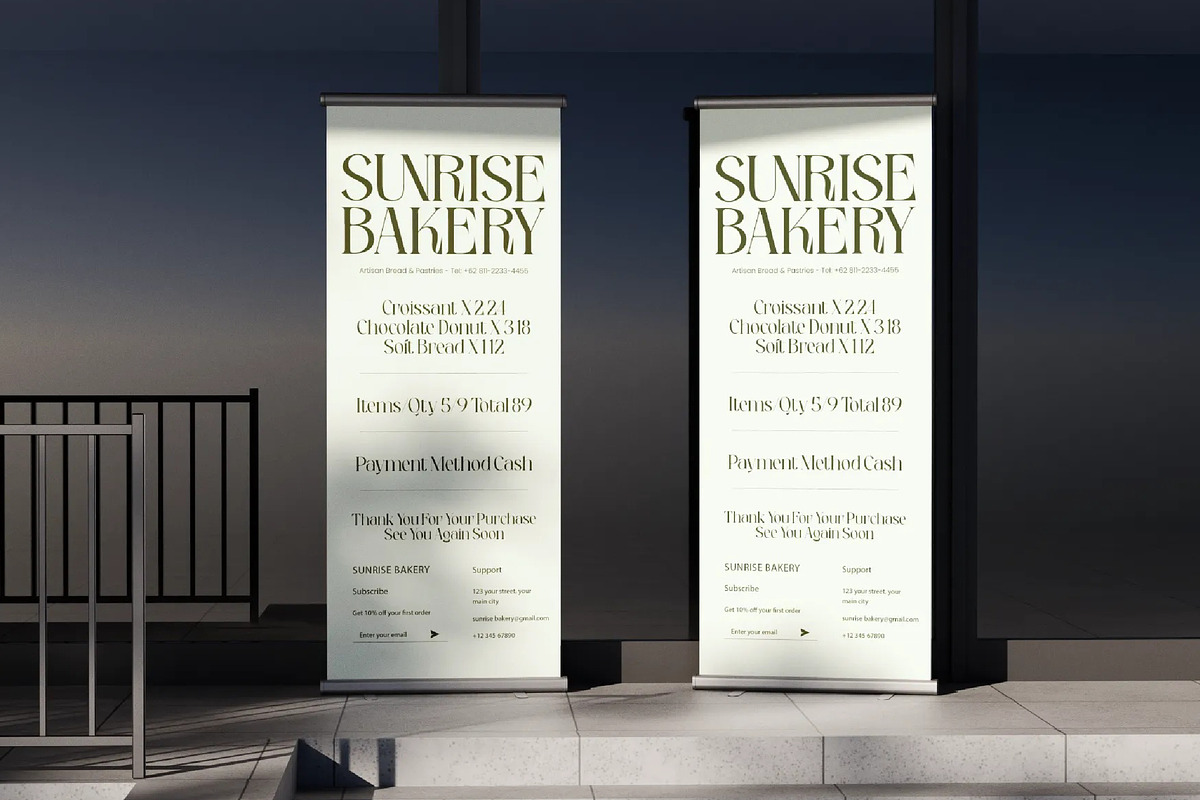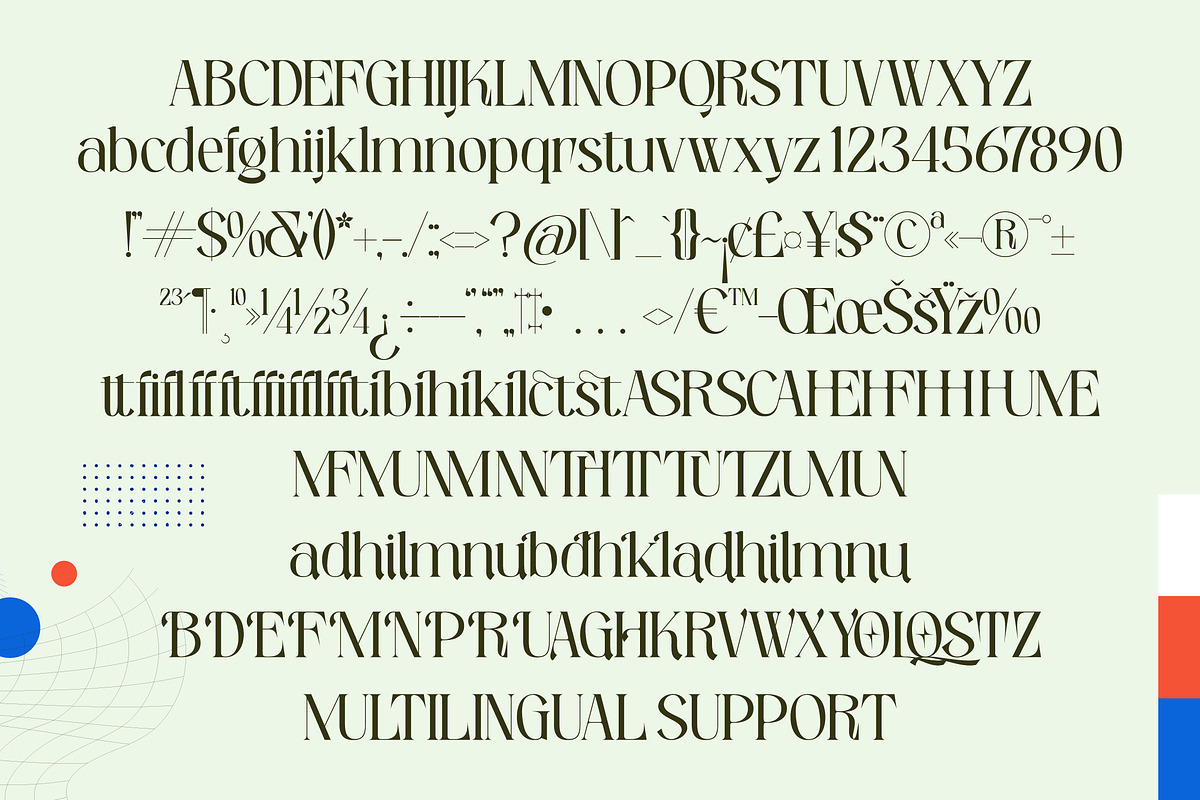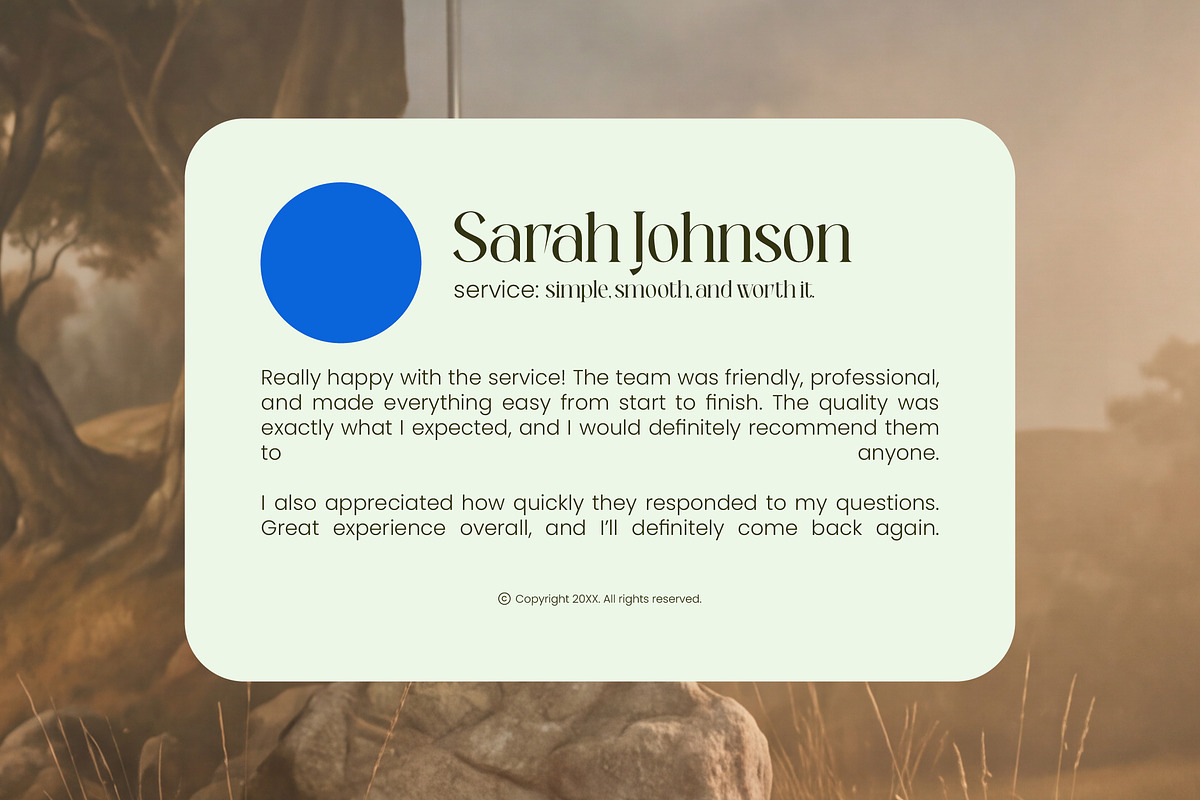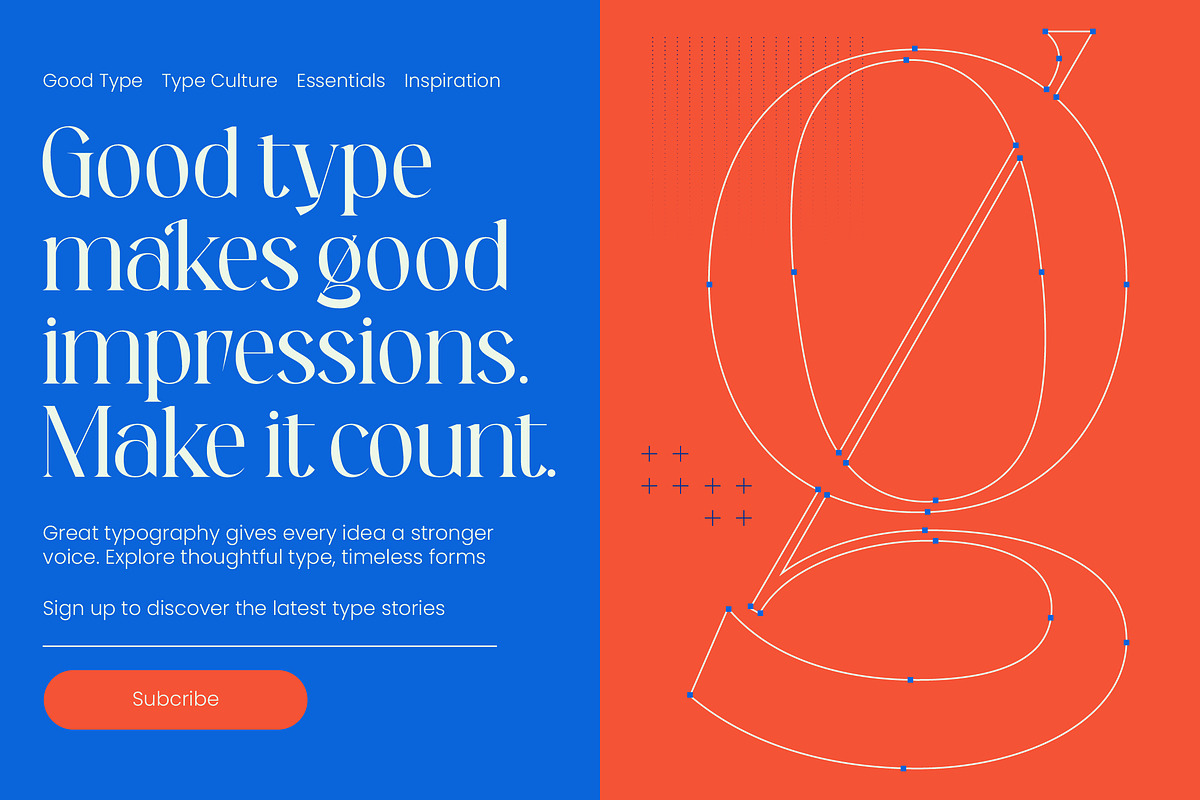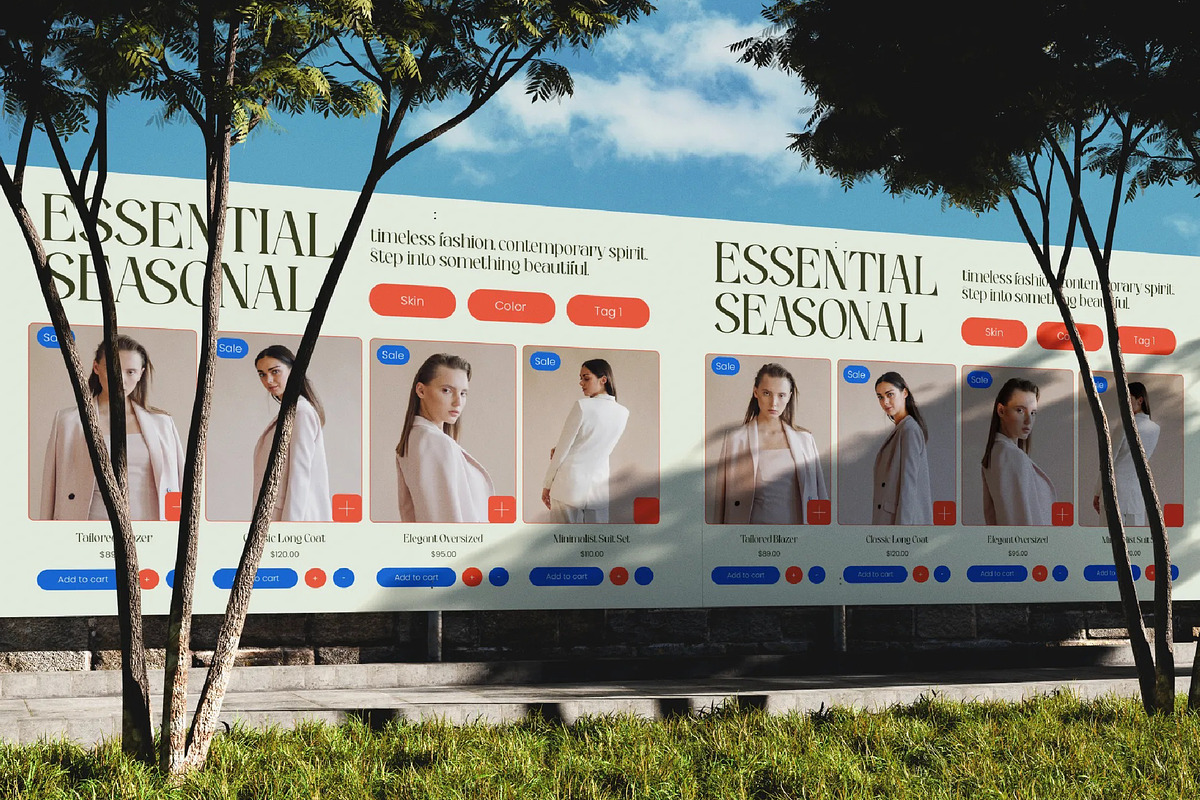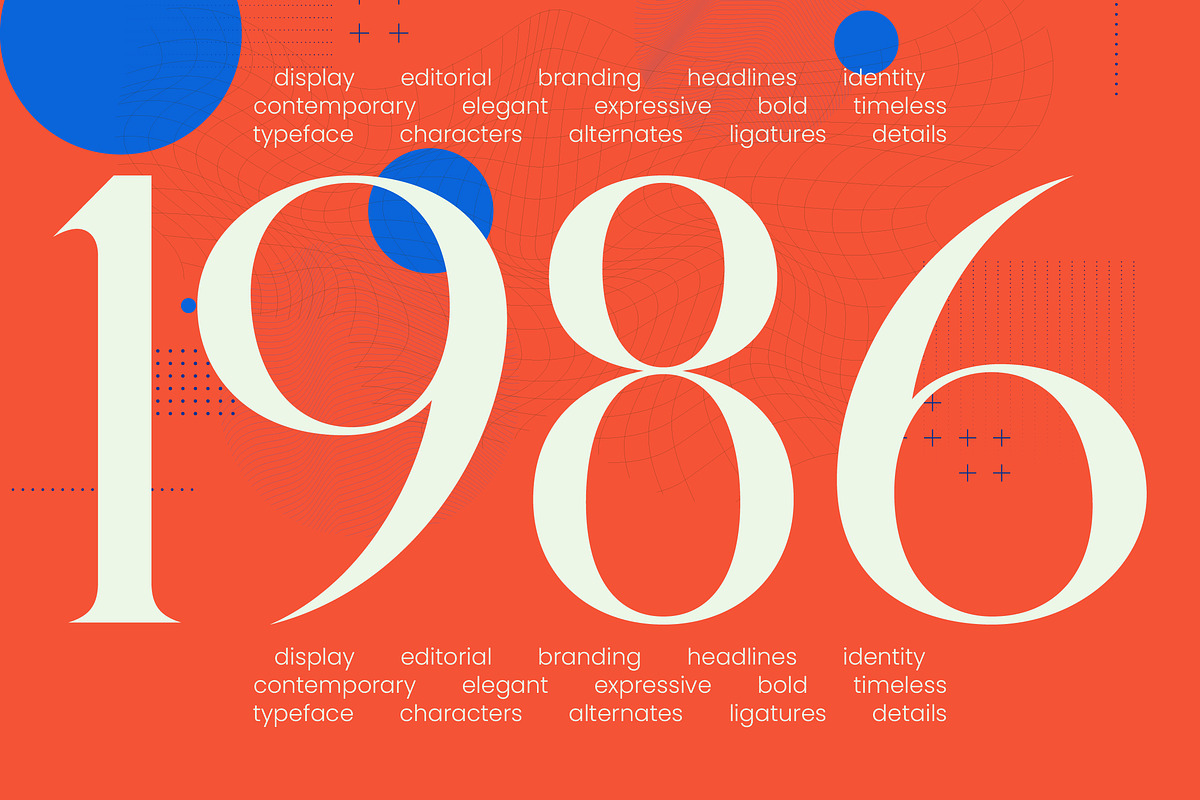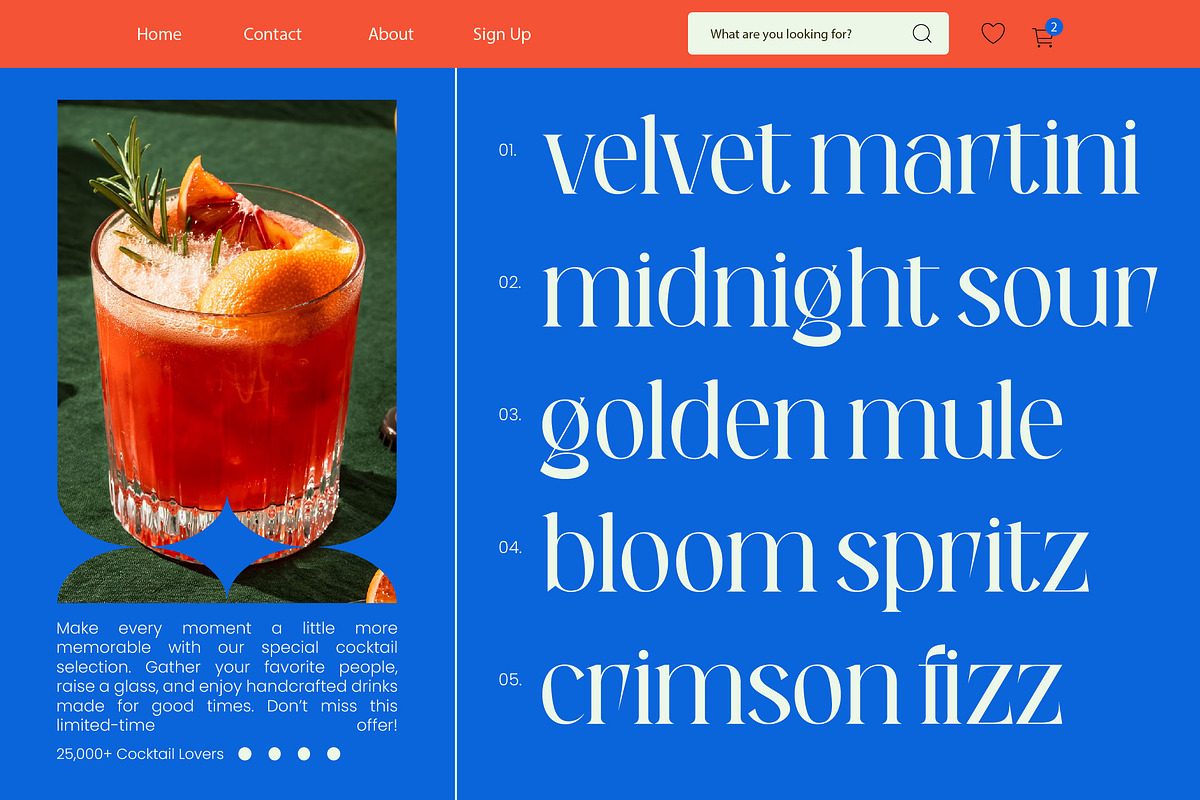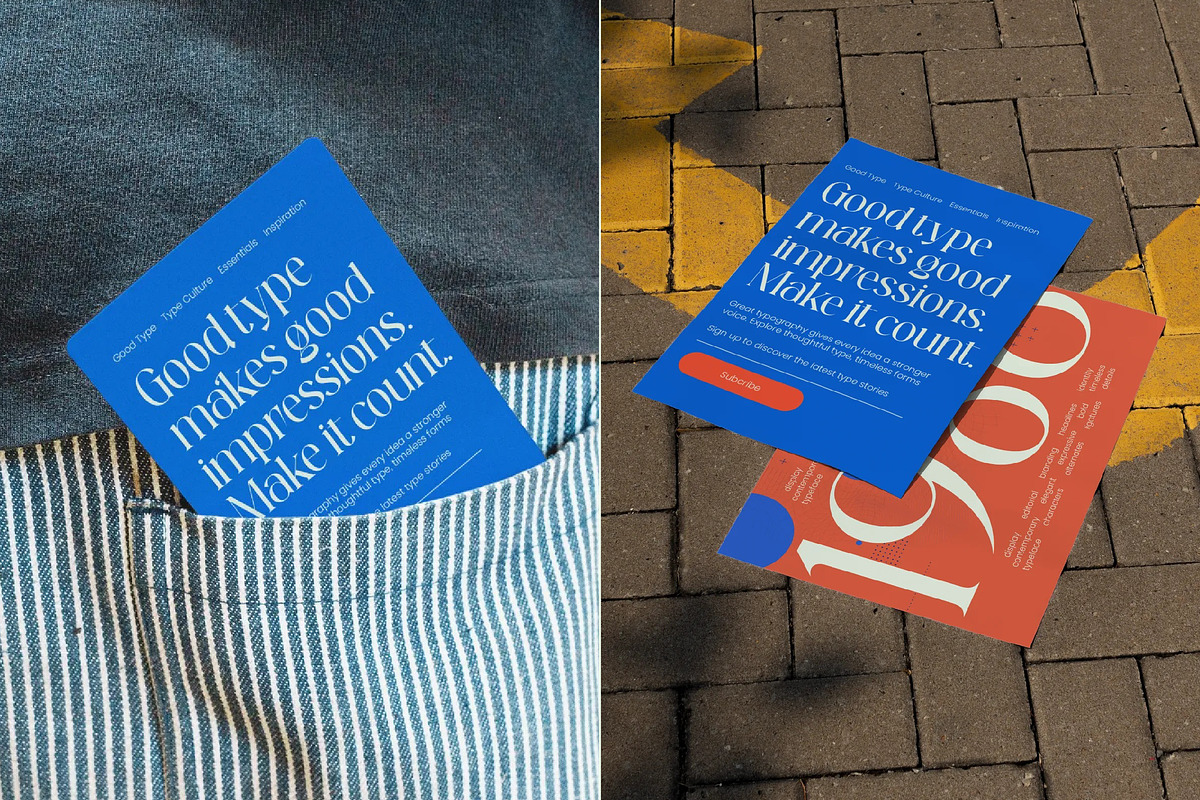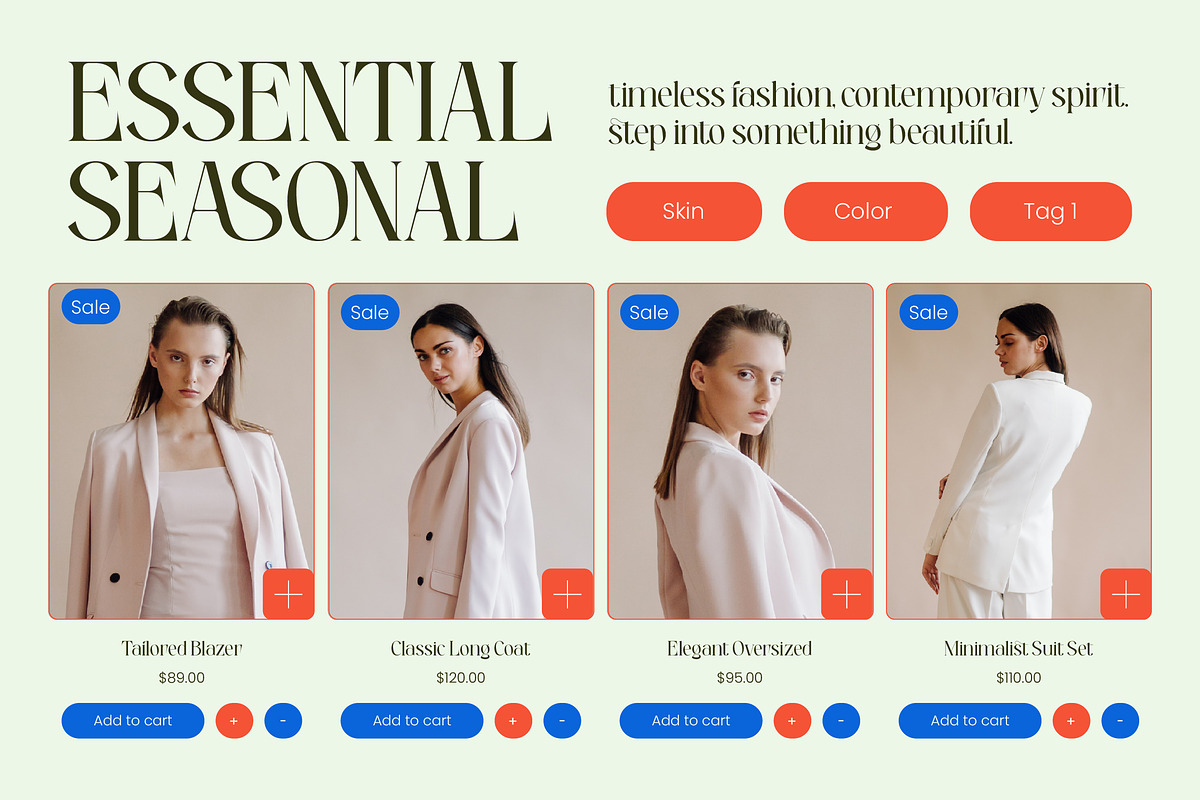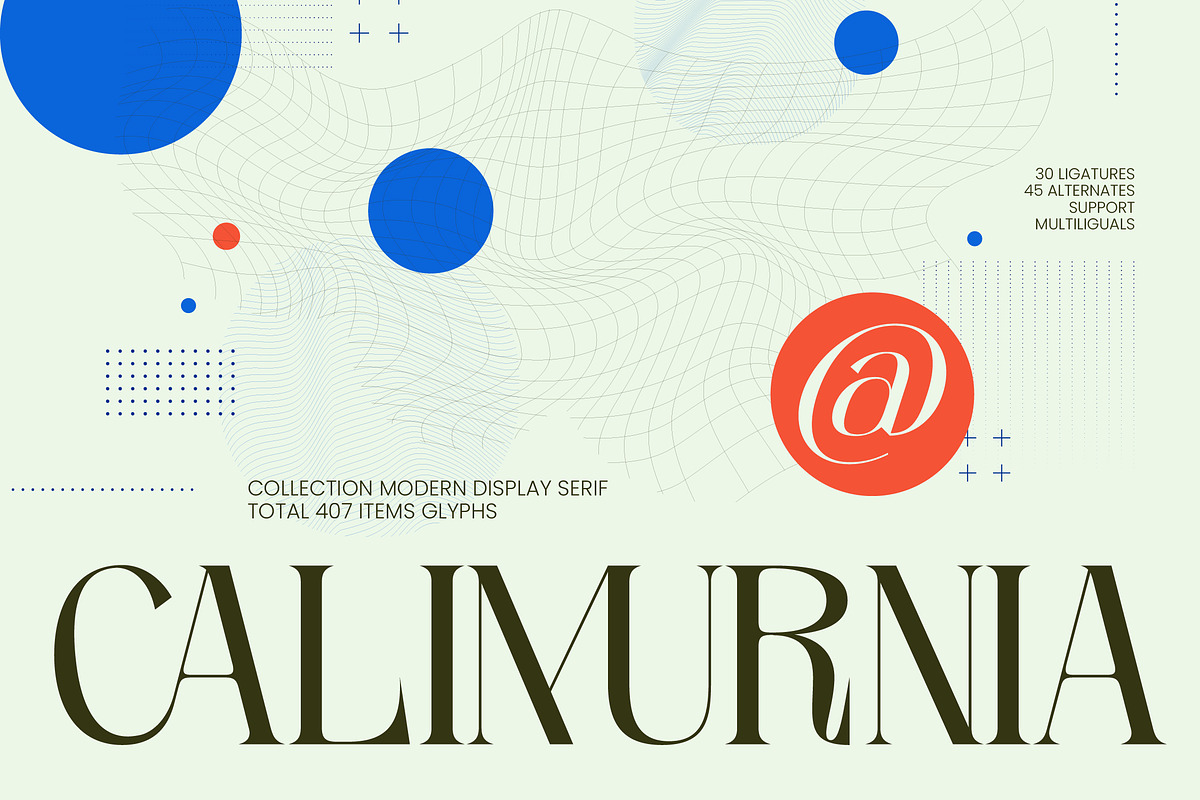
Calimurnia Collection Modern Display
Calimurnia - Collection Modern Display Serif , Calimurnia is an exquisite expression of modern elegance designed to elevate every creative project into a masterpiece of visual storytelling. This sophisticated typeface captures the essence of contemporary high-fashion while maintaining a timeless allure that commands attention with every stroke.
Drawing inspiration from the intersection of architectural precision and organic fluidity, the design mirrors the rhythmic flow of curated art galleries. It evokes an atmosphere of exclusive ateliers and sun-drenched Mediterranean aesthetics, where every curve tells a story of refined craftsmanship and aesthetic purity.
With its razor-sharp precision and artistic flair, this modern serif display delivers a sense of luxury typography that is unparalleled in the current market. The high-contrast serif strokes provide a dramatic branding impact, making it the definitive editorial font for designers who refuse to settle for the ordinary.
As the modern serif trend continues to dominate the creative landscape, this typeface stands at the forefront of editorial display fonts. It perfectly encapsulates the shift toward character-driven typography, offering a unique voice that resonates with the bold and minimal aesthetics of today’s leading design studios.
This versatile collection is the ultimate choice for high-end logo design and comprehensive corporate branding that requires a touch of class. From sophisticated editorial layouts and luxury product packaging to romantic wedding stationery and avant-garde fashion campaigns, it adapts seamlessly to any premium context.
The font package is a technical powerhouse, featuring a vast array of over 30 ligatures and 45 unique alternates alongside decorative swashes that allow for custom typographic flourishes. It also includes comprehensive multilingual support and a wide range of international characters, ensuring your message reaches a global audience with flawless style.